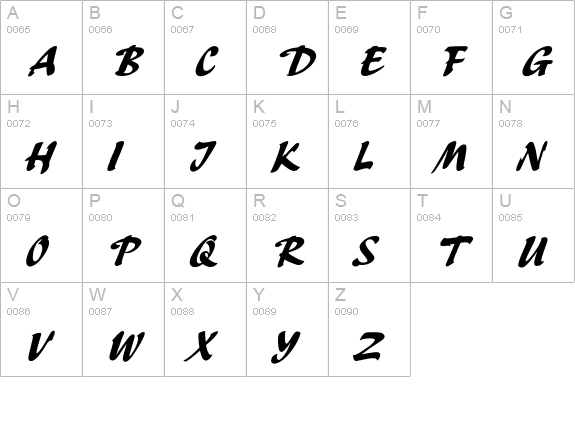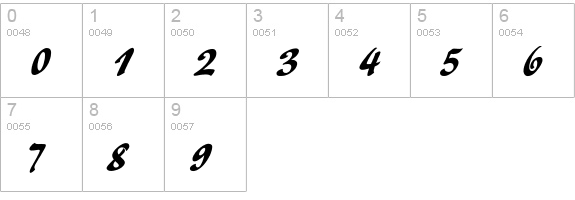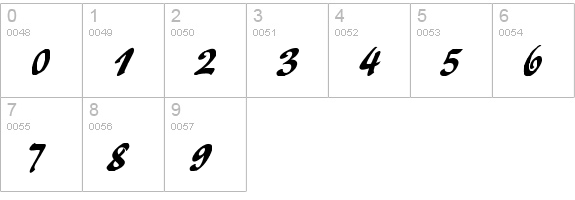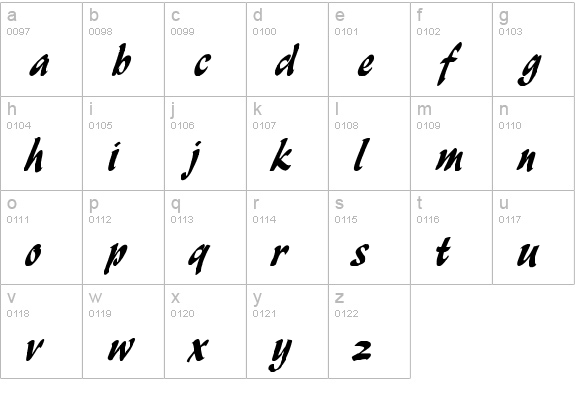
Sayer Esprit R Font Details
Sayer Esprit R font is a stunning display typeface that exudes elegance and sophistication. With its balanced letterforms and exquisite curves, this font is perfect for adding a touch of luxury to any design project. Designed with meticulous attention to detail, Sayer Esprit R font captures the essence of classic typography while adding a modern twist. Its graceful strokes and refined serifs create a harmonious visual experience that is both timeless and contemporary. This versatile font is ideal for a wide range of applications, including branding, editorial design, packaging, invitations, and more. It adds a touch of sophistication and professionalism to any project, making it a go-to choice for designers who want to make a lasting impression. What sets Sayer Esprit R font apart is not only its impeccable design but also its accessibility. It is freely available to download at FontsMarket.com, making it a valuable resource for designers looking to enhance their creative arsenal without breaking the bank. Whether you're working on a high-end fashion campaign, a luxurious brand identity, or a refined editorial layout, Sayer Esprit R font is sure to elevate your designs to new heights. Its timeless beauty and effortless charm make it a must-have typeface for any design enthusiast. Download Sayer Esprit R font today and unleash your creativity with this exceptional free font.